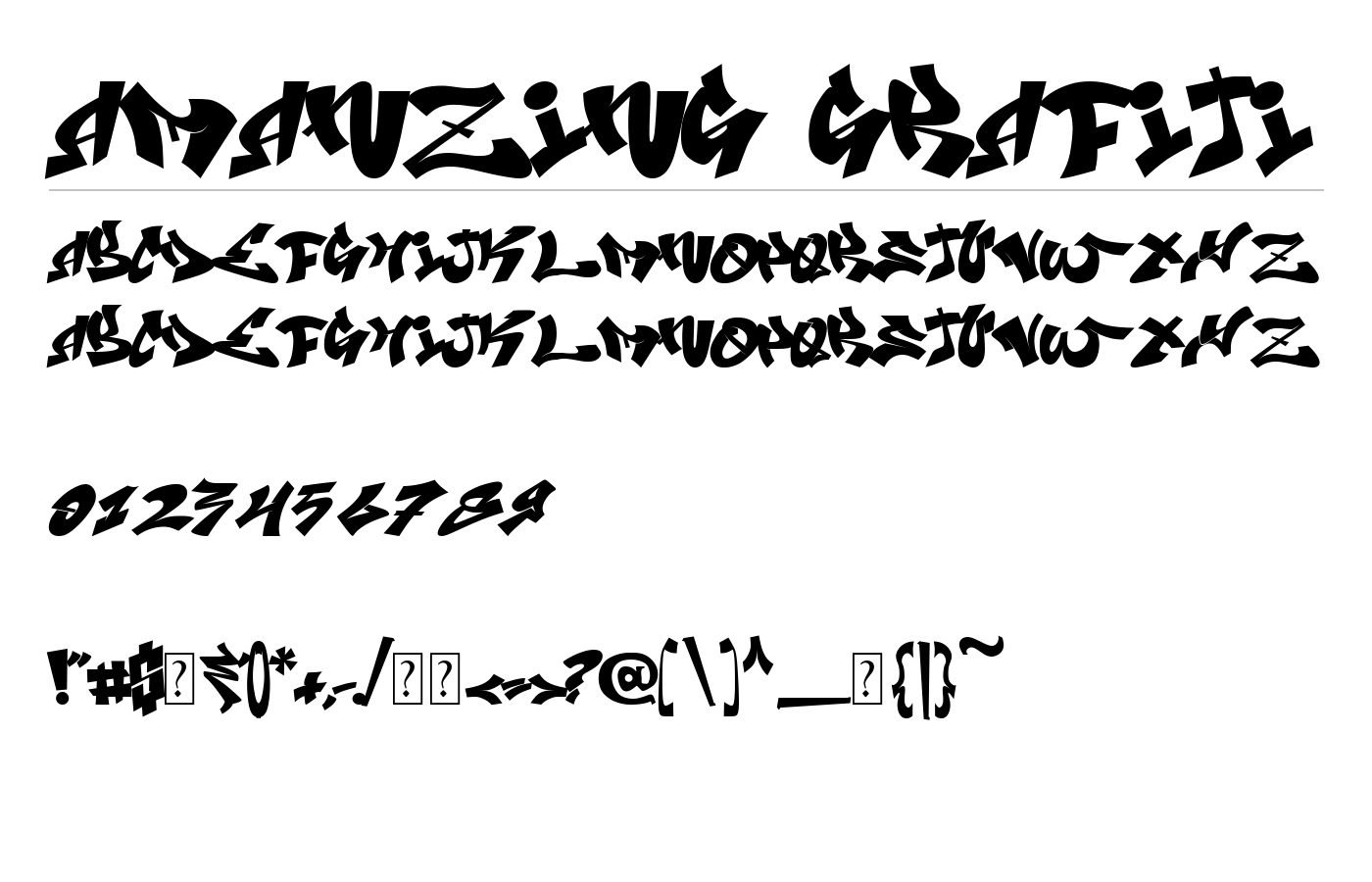
Amanzing Grafiti is a bold, expressive display font inspired by urban street art, featuring sharp, angular letterforms with high contrast and dynamic movement. Its condensed, all-caps style with unique, edgy shapes makes it perfect for creating energetic and youthful designs, especially in posters, logos, and branding that seek a rebellious or modern vibe. This font works best when used as a standout headline or graphic element where its distinctive personality can shine.
Amanzing Grafiti Font
About Amanzing Grafiti Font
| Font family | Amanzing Grafiti Font |
| Designer | Sikisalaktype |